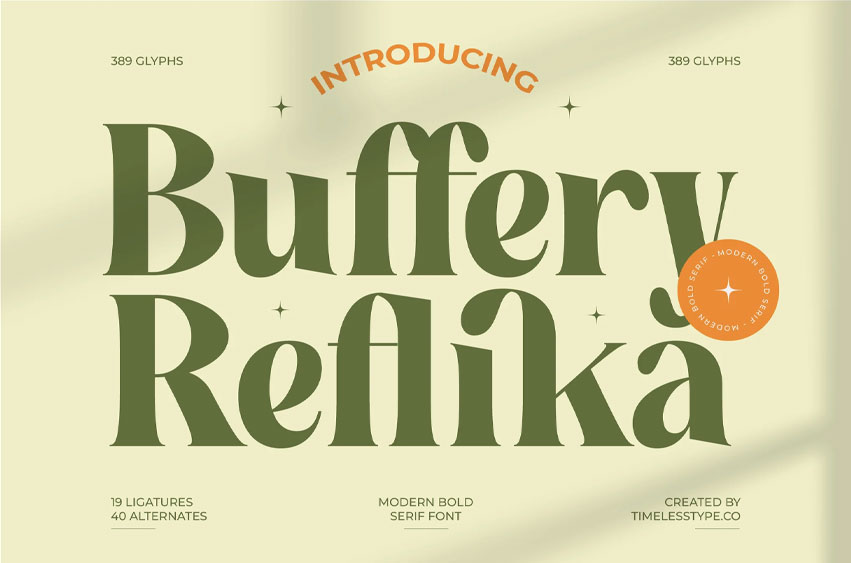
Buffery Reflika Font
Buffery Reflika Font is a modern bold serif display font featuring smooth curves, expressive contrast, and a refined contemporary silhouette. Its stylish structure blends modern elegance with warm retro undertones, making it perfect for branding, editorial layouts, packaging, posters, social media graphics, and high-impact logo design. The font delivers a confident, artistic presence that enhances any creative project with sophistication and personality.
Packed with 19 ligatures, 40 alternates, and 389 glyphs, Buffery Reflika gives designers extensive flexibility to create unique wordmarks, decorative titles, stylized compositions, and polished typographic arrangements. Its bold serifs, sculpted shapes, and versatile stylistic options make it an excellent choice for projects requiring a powerful yet elegant display serif.